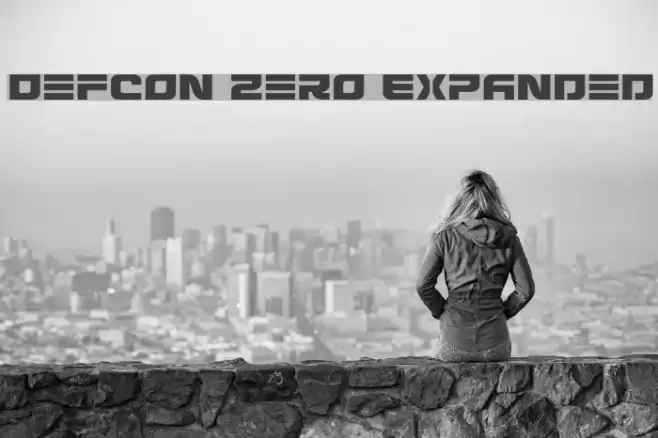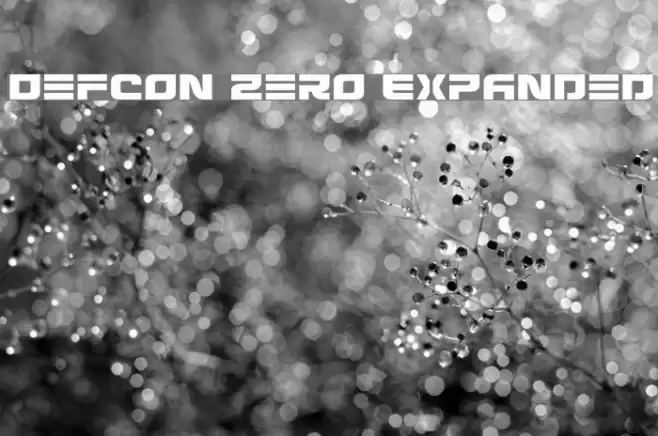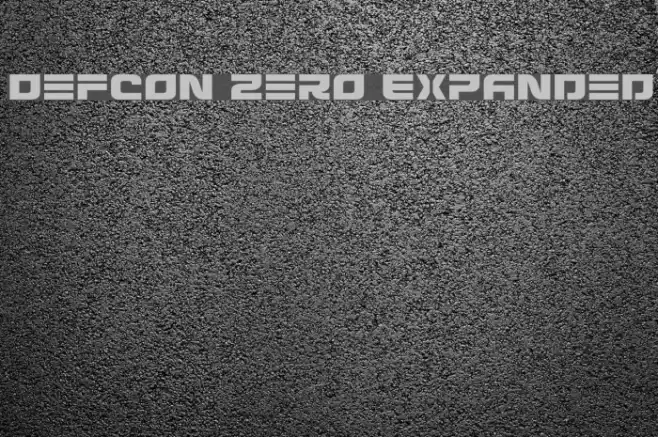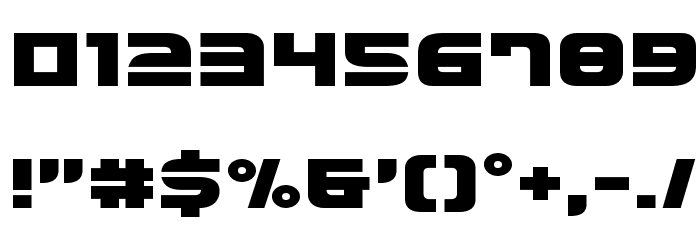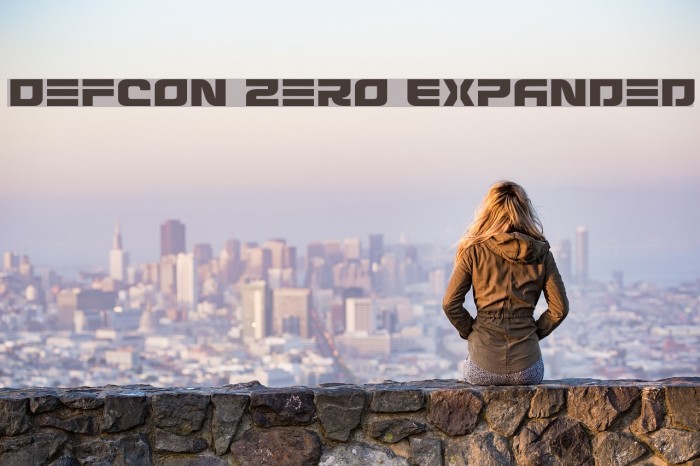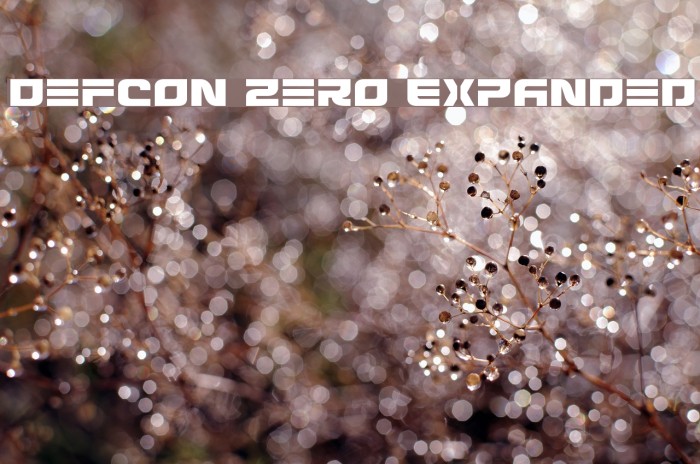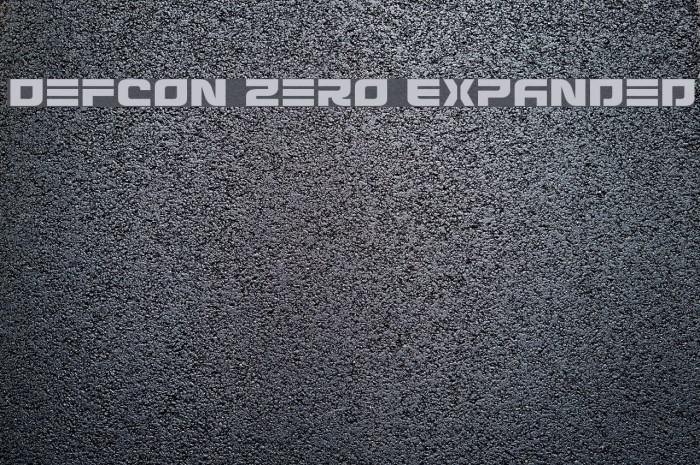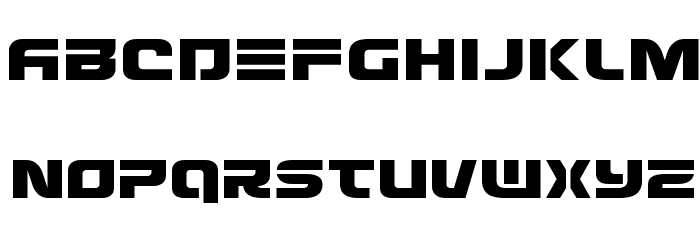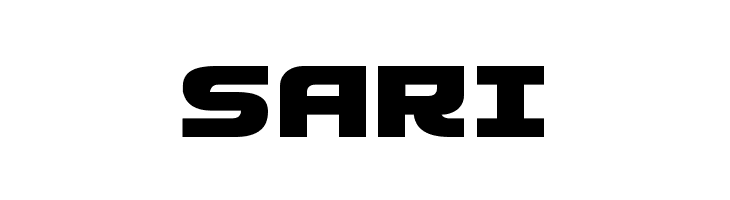
Defcon Zero Expanded Font
Defcon Zero Expanded Description
This font features a bold, geometric design with a futuristic and industrial feel. The characters are wide and blocky, with sharp angles and a consistent stroke width that gives it a strong, commanding presence. The uppercase letters are particularly striking, with a uniform height and width that create a cohesive look. The numbers and special characters maintain the same bold and structured aesthetic, making them easily legible. This font is ideal for projects that require a modern and assertive style, such as technology branding, video game titles, or sci-fi themed designs.
A bold, geometric font with a futuristic and industrial style from Sci-fi fonts.
- Proposed Projects: Ideal for technology branding, video game titles, sci-fi themed designs, and industrial-themed posters.